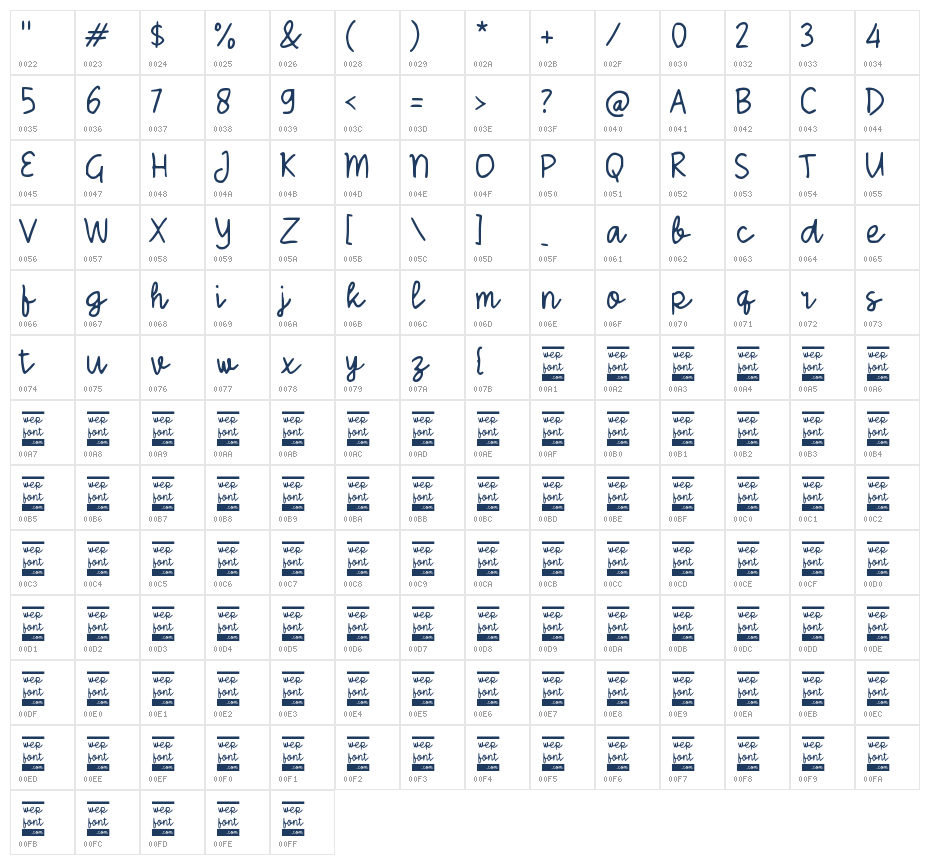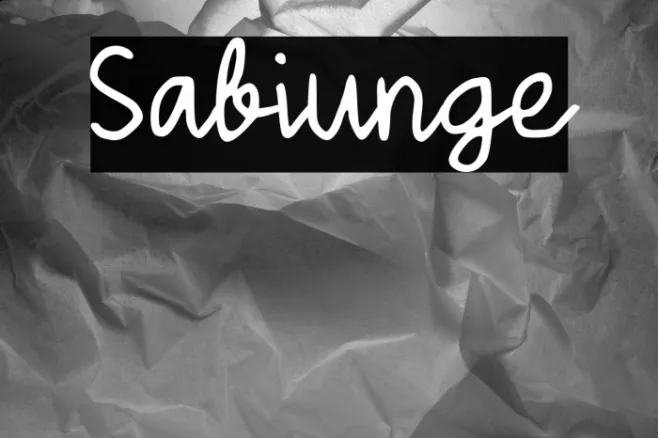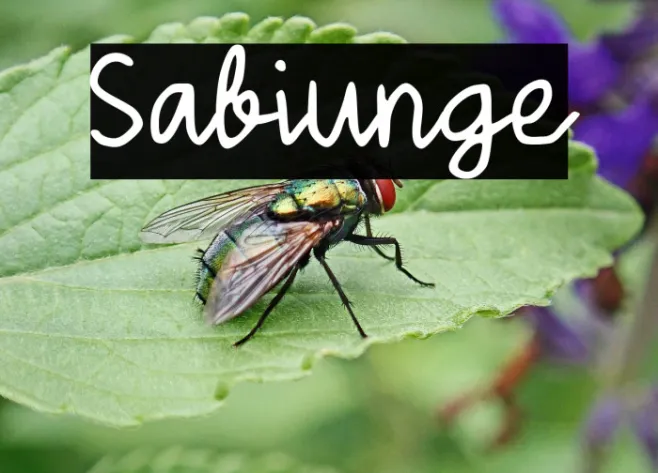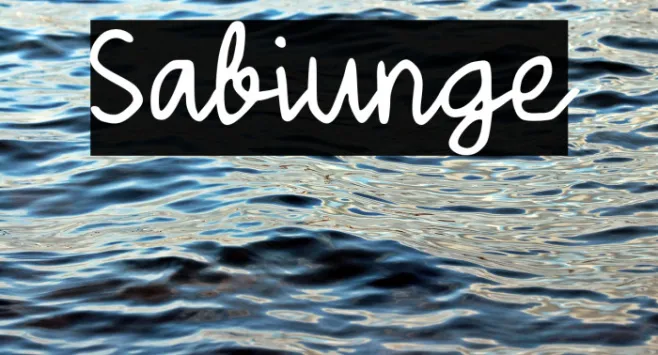
Sabiunge Font
Sabiunge Description
A playful, handwritten style font with a casual and friendly appearance, featuring slightly irregular strokes and a smooth flow.
| Overall Style | Casual, Friendly, Playful |